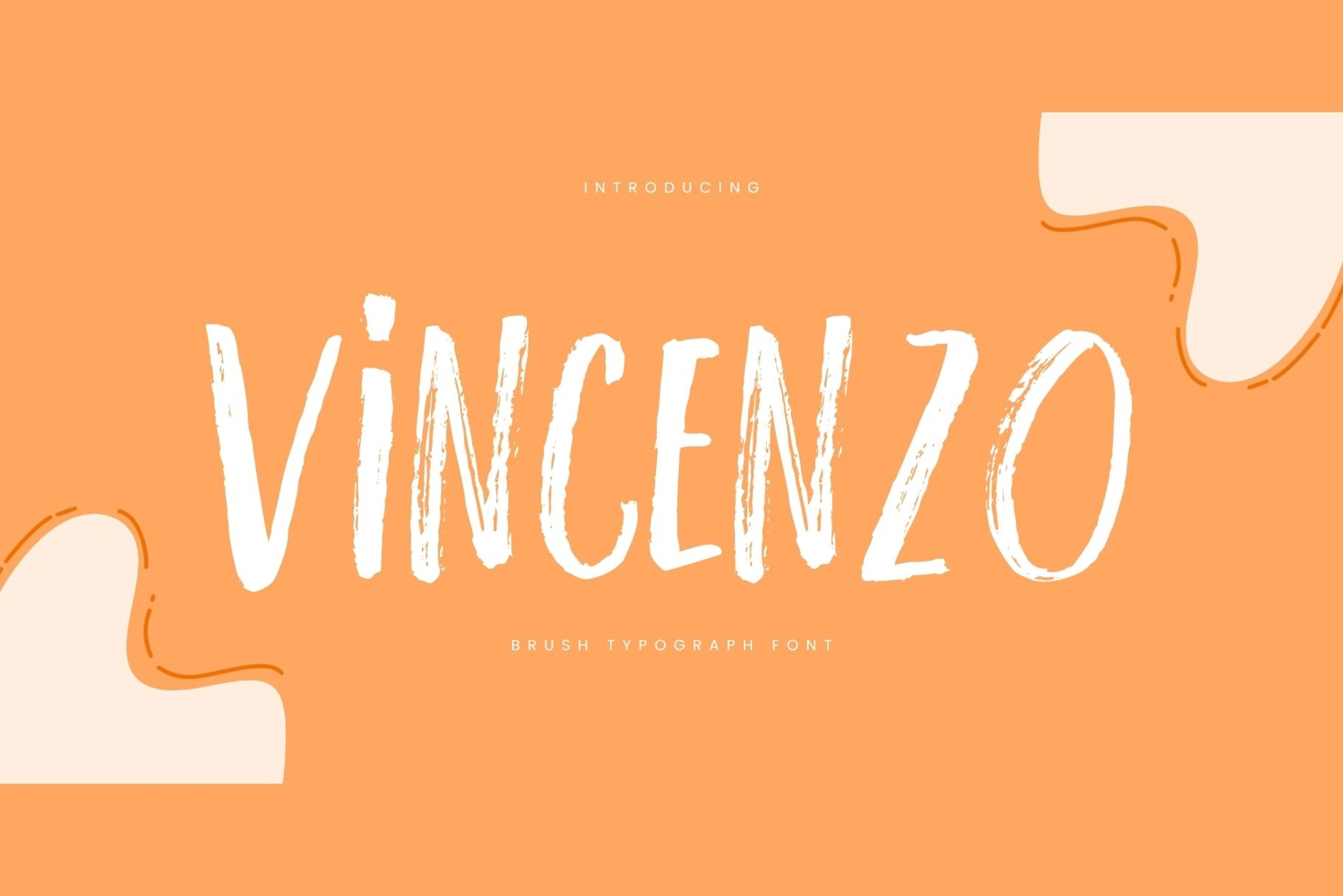
Created By Gian Studio
Vincenzo
Vincenzo a classic/script style font or a font with brush stroke characteristics. In the world of typography, this font has a fluid, handwritten feel. It is an elegant, classy, ?
and refined script font.
Characteristics: It has clean, thin, and smooth flowing strokes. This font gives, aesthetic, and premium feel.
Uses: Perfect for wedding invitation designs, fashion branding logos, aesthetic quotes, greeting cards, and even digital creative projects.
Uses: Often used for headlines, vintage posters, classic product logos, or retro-elegant designs.